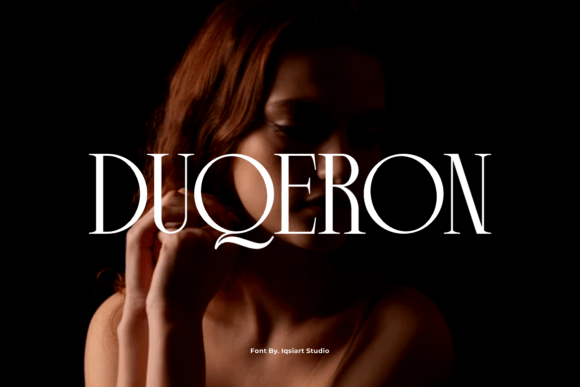
Introduction to Duqeron Font
Duqeron Font is a serif and authentic display typeface that suits a variety of design needs.
Key Features of Duqeron Font